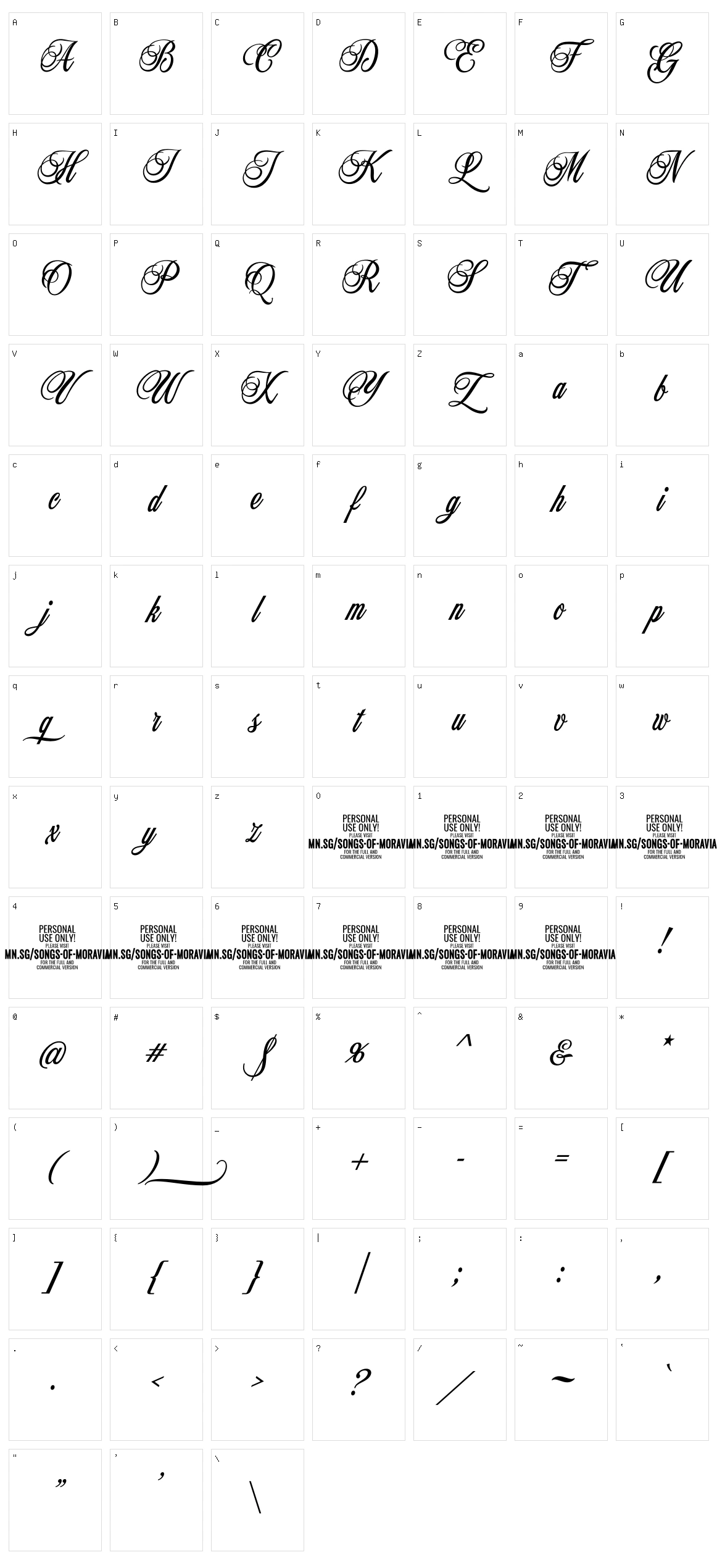
Songs of Moravia is a beautiful script typeface.
Its decorative capitals, adorned with delicate swashes and swirls, evoke the rich heritage and melodious charm of European design.
Songs of Moravia captures the genuine spirit of folk tunes, offering a hint of tradition woven with modern craft, perfectly suited for projects that seek to marry the old with the new.
Gentle yet vibrant, this type is a delightful choice for invitations and formal design.
Use underscore _ to make a swash after any word, or multiple underscores for different lengths.
Example: Baseball_
The font is built with advanced OpenType functionality and has a guaranteed top-notch quality, containing stylistic and contextual alternates, ligatures, and more features; all to give you full control and customizability. It has extensive lingual support, covering all Latin-based languages, from Northern Europe to South Africa, from America to South-East Asia. It contains all characters and symbols you'll ever need, including all punctuation and numbers.
Designed by Mans Greback, this typeface is a reflection of his commitment to bringing authentic and diverse fonts to the market. With a careful touch and a keen eye for detail, Greback presents a typeface that is not only visually pleasing but also embodies a rich narrative.